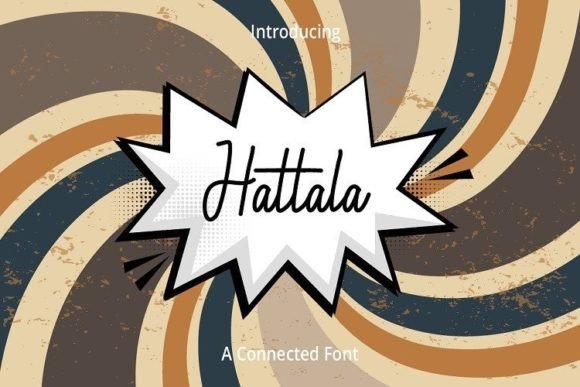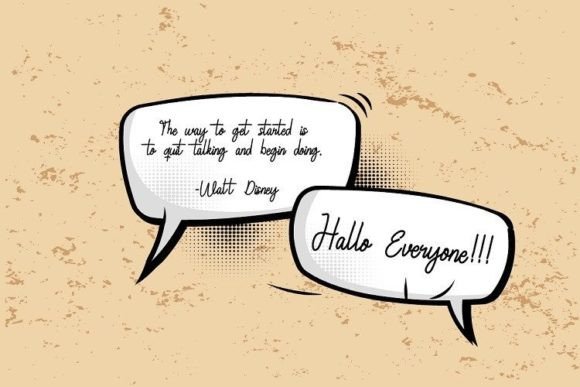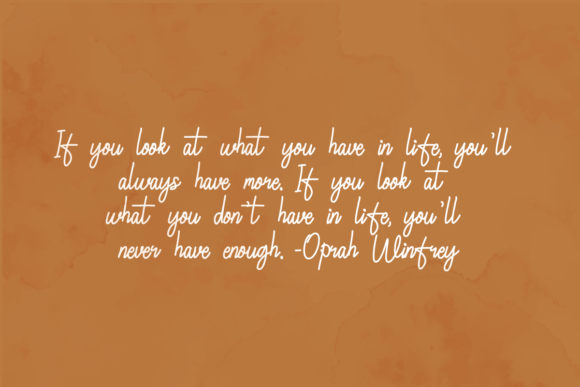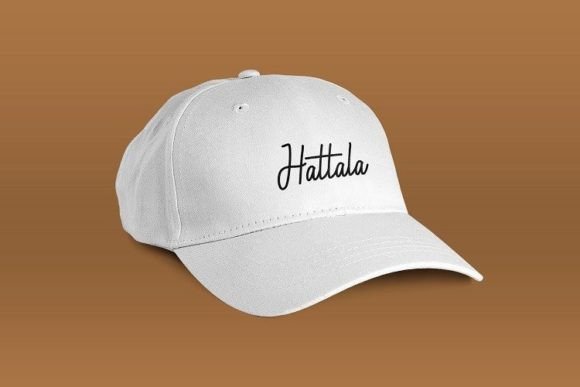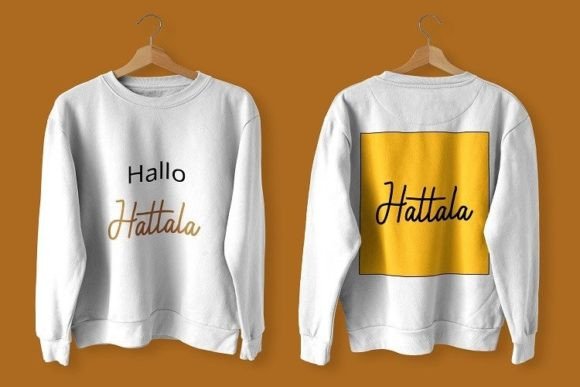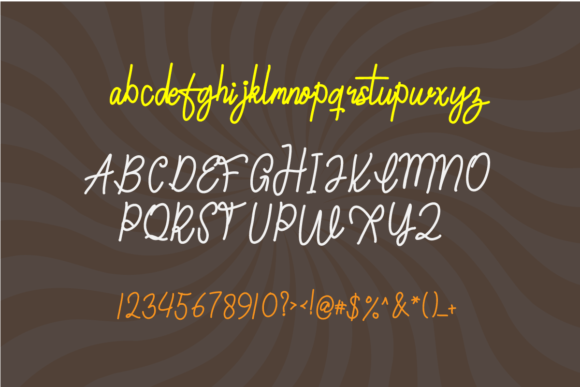
Hattala Font
Hattala, a Javanese name meaning “Honey,” is a charming and fun hand-drawn typeface designed to add a delightful handmade touch to your projects. This cute and quirky font features a little imperfect look, giving it a unique and playful character. Whether you’re working on recipes, book illustrations, lettering, packaging, greeting cards, or any other creative endeavor, the Hattala Font is crafted to bring sweetness and charm to your designs.
The trend of using Javanese names has grown in popularity due to their interesting meanings and cultural richness. Hattala, with its association with honey, adds a touch of sweetness and warmth to the font’s identity.
The cute and fun characteristics of Hattala are evident in its hand-drawn style, making it perfect for projects that require a playful and whimsical aesthetic. The imperfect look adds authenticity and a human touch, enhancing the overall appeal of your creative work.
Whether you’re designing book illustrations or creating fun packaging, Hattala stands out as a typeface that combines sweetness with quirkiness. Its versatility makes it suitable for a variety of applications, allowing you to infuse your projects with a sense of joy and creativity.
Incorporate Hattala into your design toolkit and experience how it brings a handmade and charming vibe to your creations. Let this cute and fun hand-drawn typeface be the perfect addition to your projects, making them stand out with sweetness and personality.